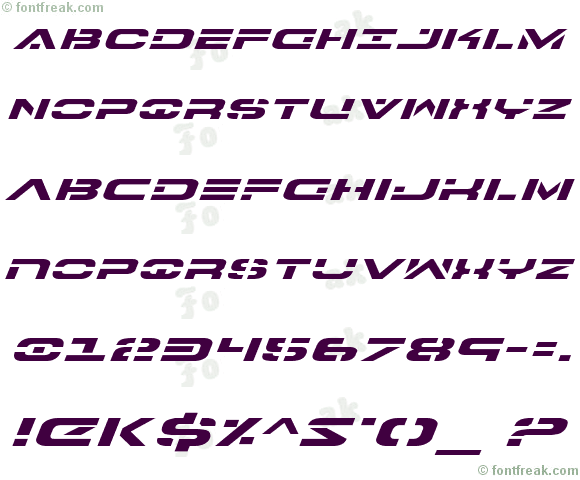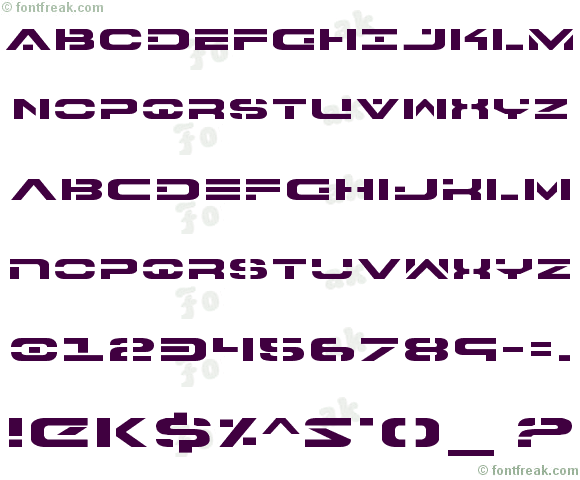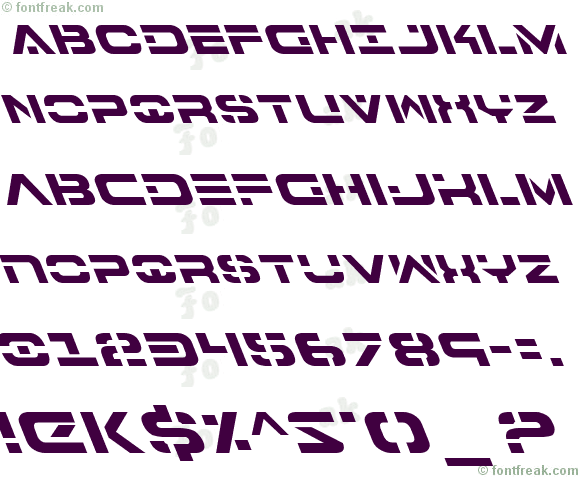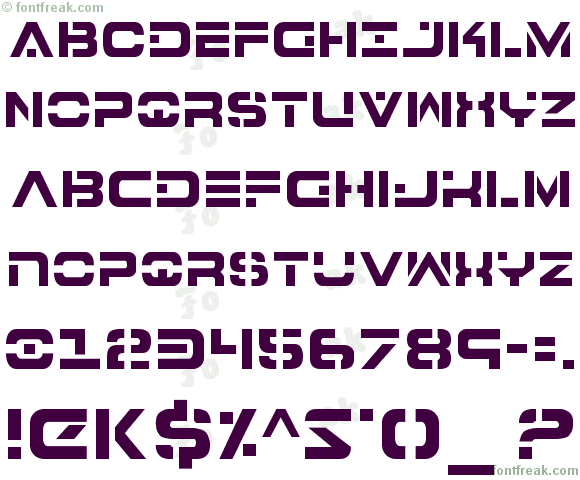
7th Service Italic
7th Service Leftalic
7th Service ExtraBold
7th Service Outline
7th Service Expanded Italic
7th Service Condensed
7th Service
7th Service Semi-Condensed
7th Service Expanded
7th Service Outline Italic
The 7th Service font, created by Iconian Fonts, is a striking display typeface that captures attention with its unique visual style. This font falls into the category of decorative typefaces, characterized by its bold, extrabold strokes and innovative outline design. The weighty letters convey a sense of strength, while the italicized form adds a dynamic flair, making it suitable for a variety of applications. The spacing is well-balanced, ensuring readability even at larger sizes, which is essential for impactful design.
The 7th Service font is ideal for diverse use cases. It shines in environments that require a bold statement, such as movie posters or promotional materials for events. Its distinctive look also makes it a great choice for restaurant menus that want to convey a modern yet inviting atmosphere. Additionally, graphic designers can utilize it for branding projects, particularly for tech startups or contemporary brands looking to stand out. Small business owners might find it useful for eye-catching signage or flyers that demand immediate attention. Content creators can also leverage this font for social media graphics, ensuring their posts pop in crowded feeds.